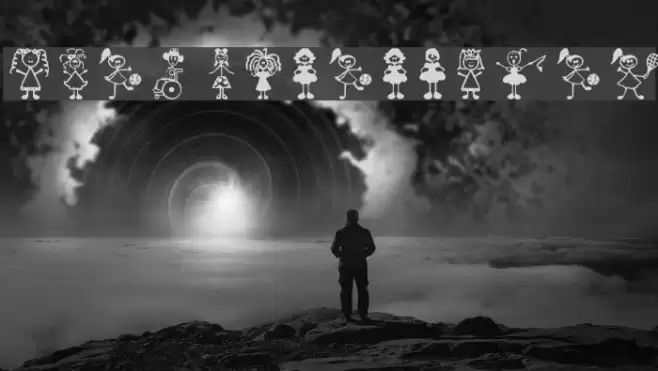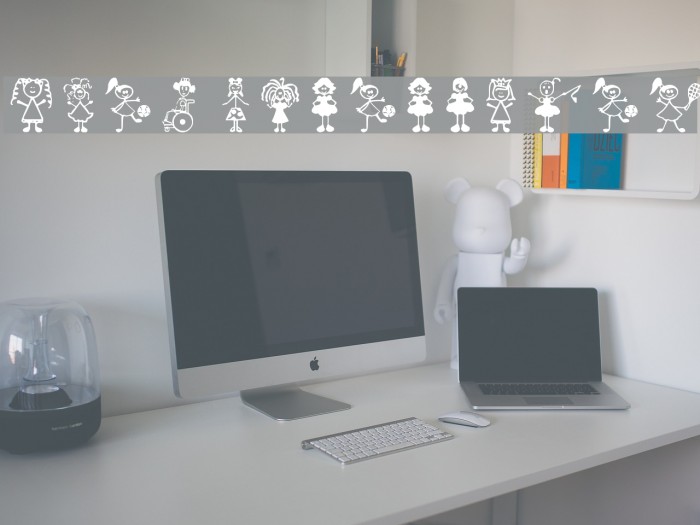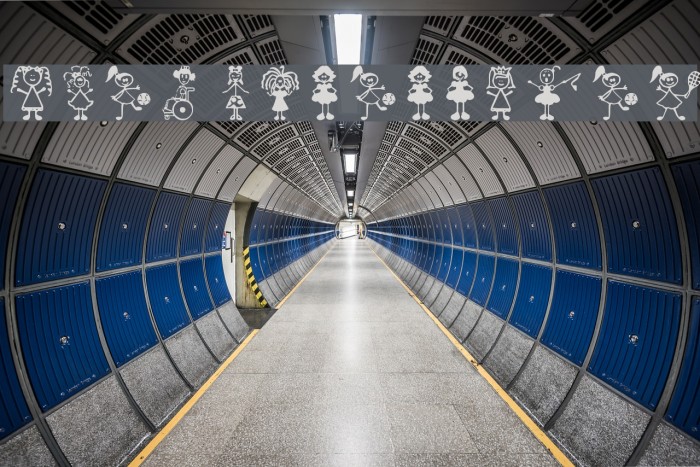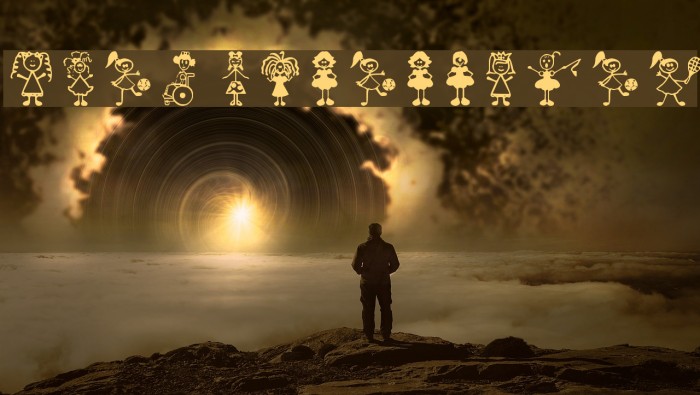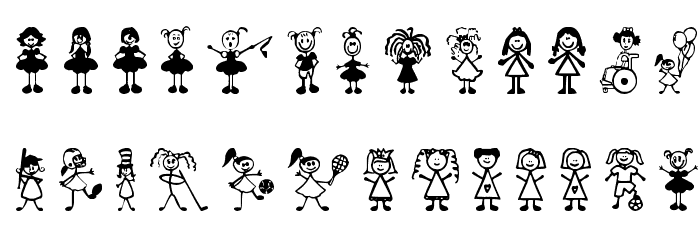
Girl Characters Font
Girl Characters Description
A playful, hand-drawn decorative font featuring a variety of whimsical girl stick-figure characters, each with unique outfits, hairstyles, and accessories. The style is informal and cartoonish, with simple lines and exaggerated expressions, suitable for creative and child-oriented designs.
- Proposed Projects: Children’s books, birthday invitations, educational materials, playful branding, posters, scrapbooking.
- Overall Style: Playful, Whimsical, Childlike
- Use Case: Decorative elements, Themed headlines, Illustrative accents